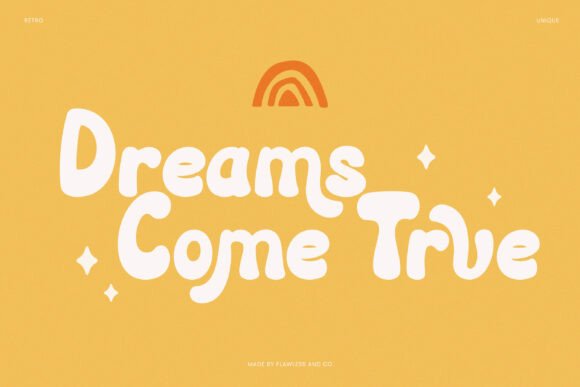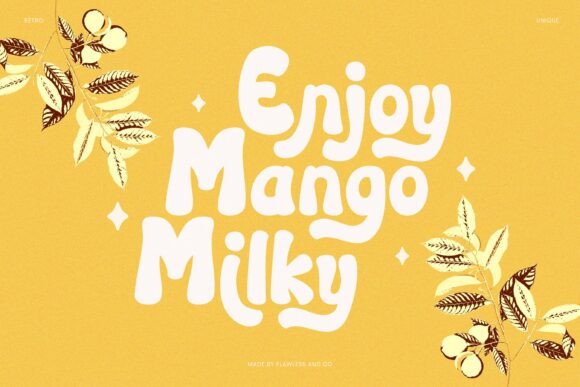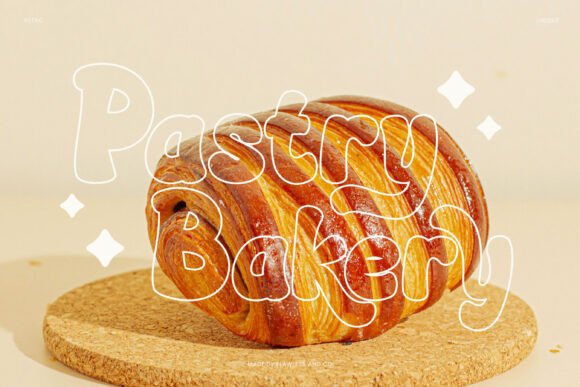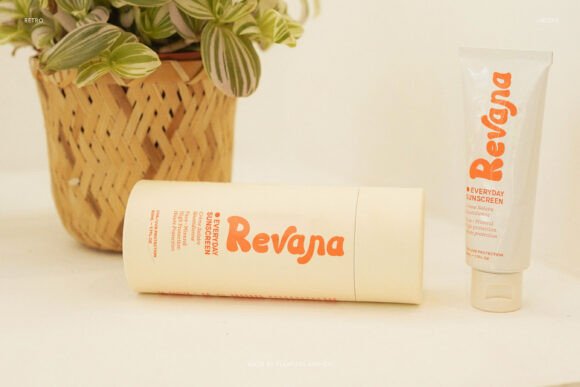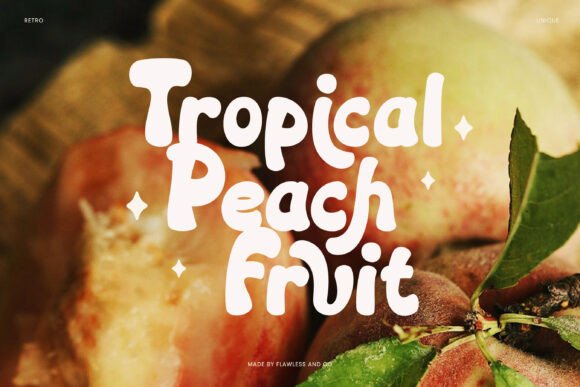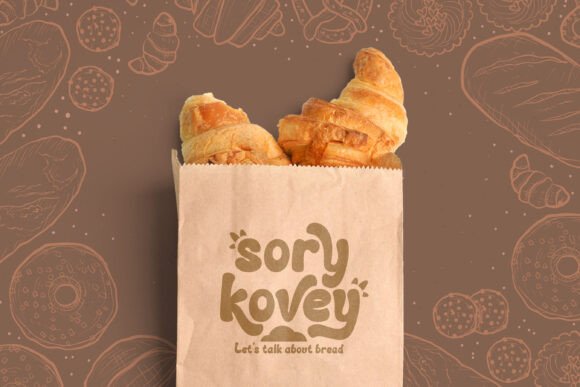
Introduction to Rhaven Font
Introducing “Rhaven,” a delightful display font designed to bring a playful yet professional touch to your brand.
With its bold and eye-catching letterforms, Rhaven adds personality and charm to any design, making it perfect for logo creation, packaging, and other branding materials .
Key Features of Rhaven Font
Why Choose Rhaven Font?
Rhaven Font offers exceptional quality and versatility, making it a valuable addition to your design toolkit. Whether you’re creating for personal projects or commercial use, Rhaven Font delivers professional results.